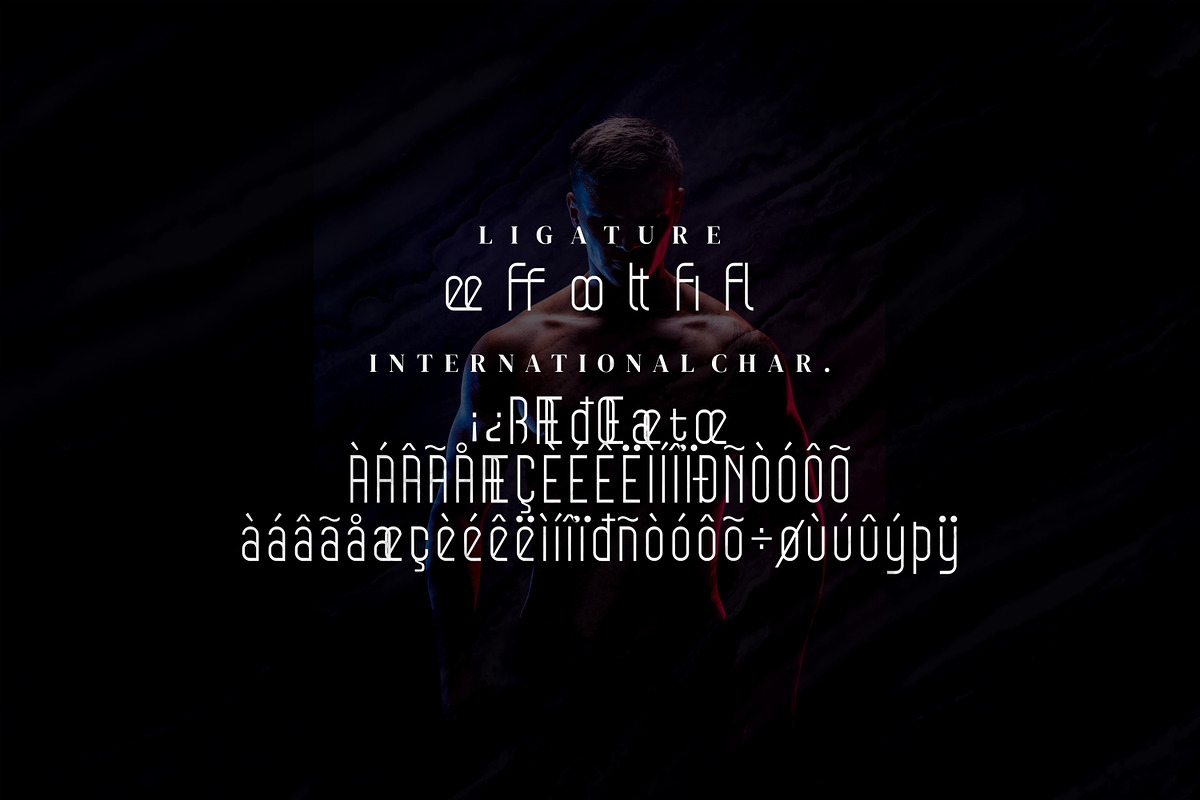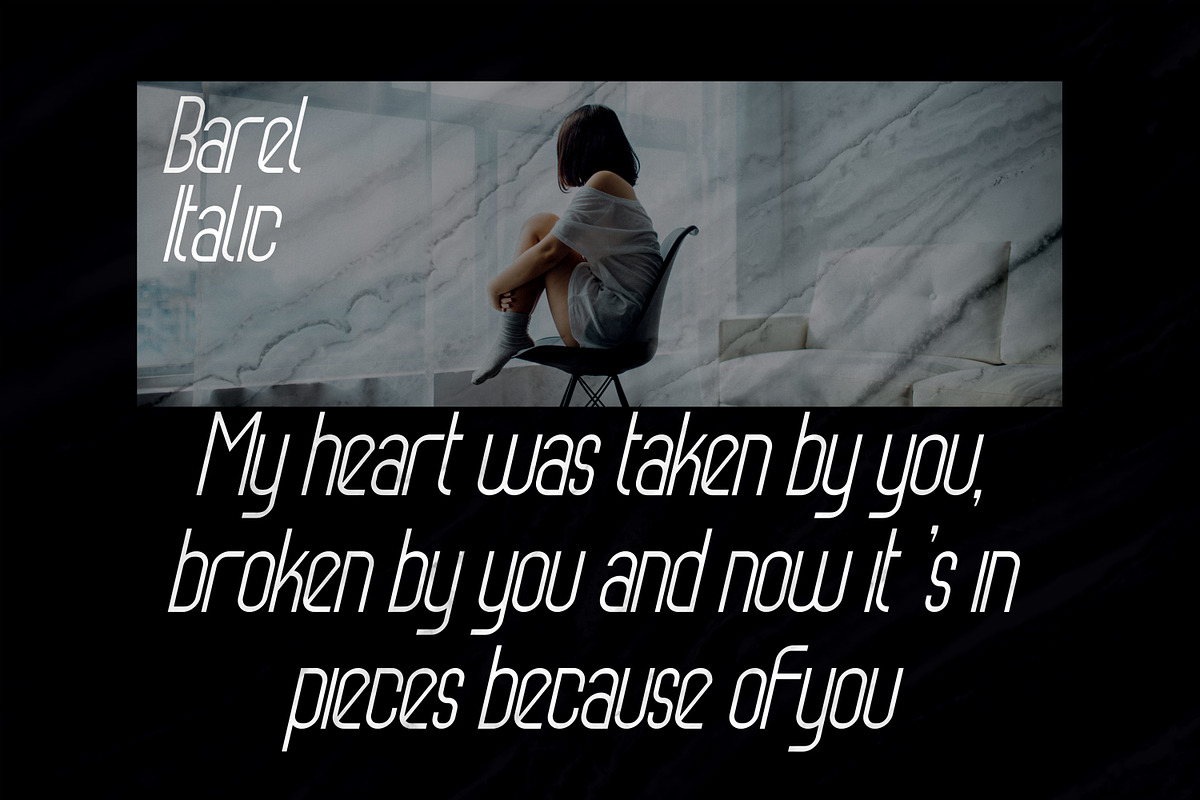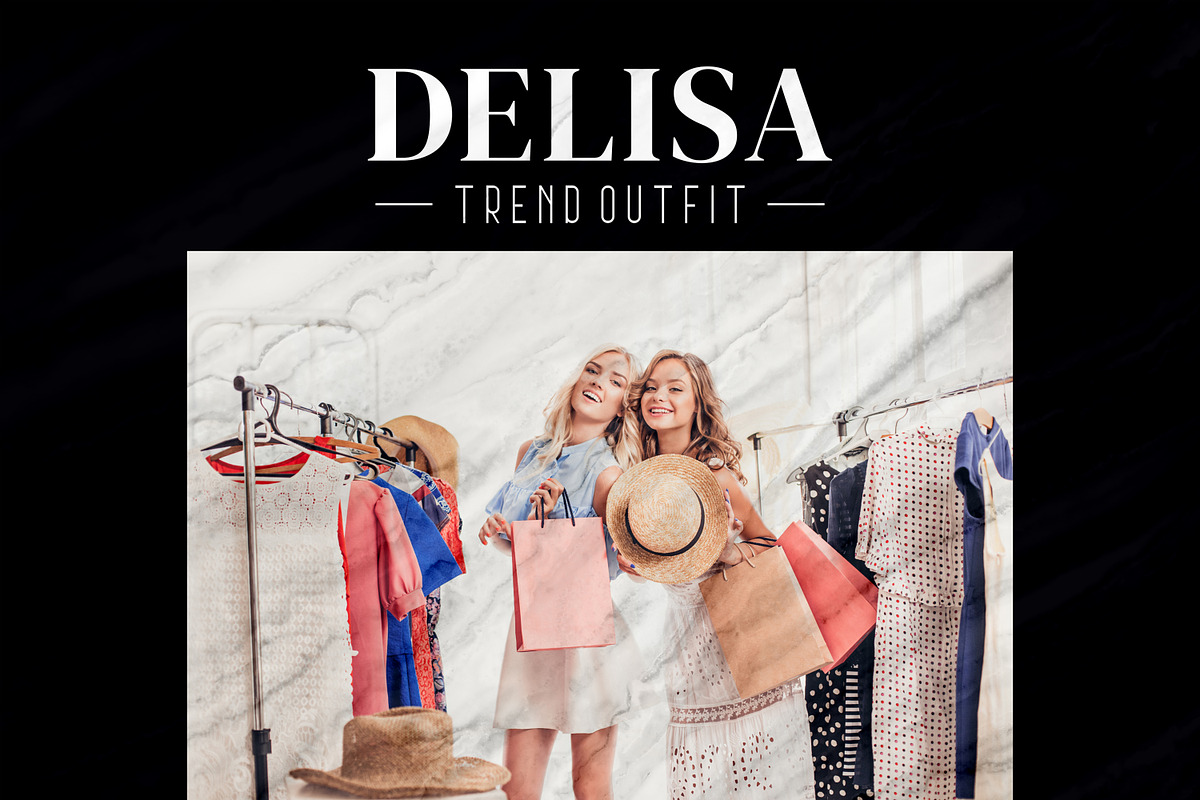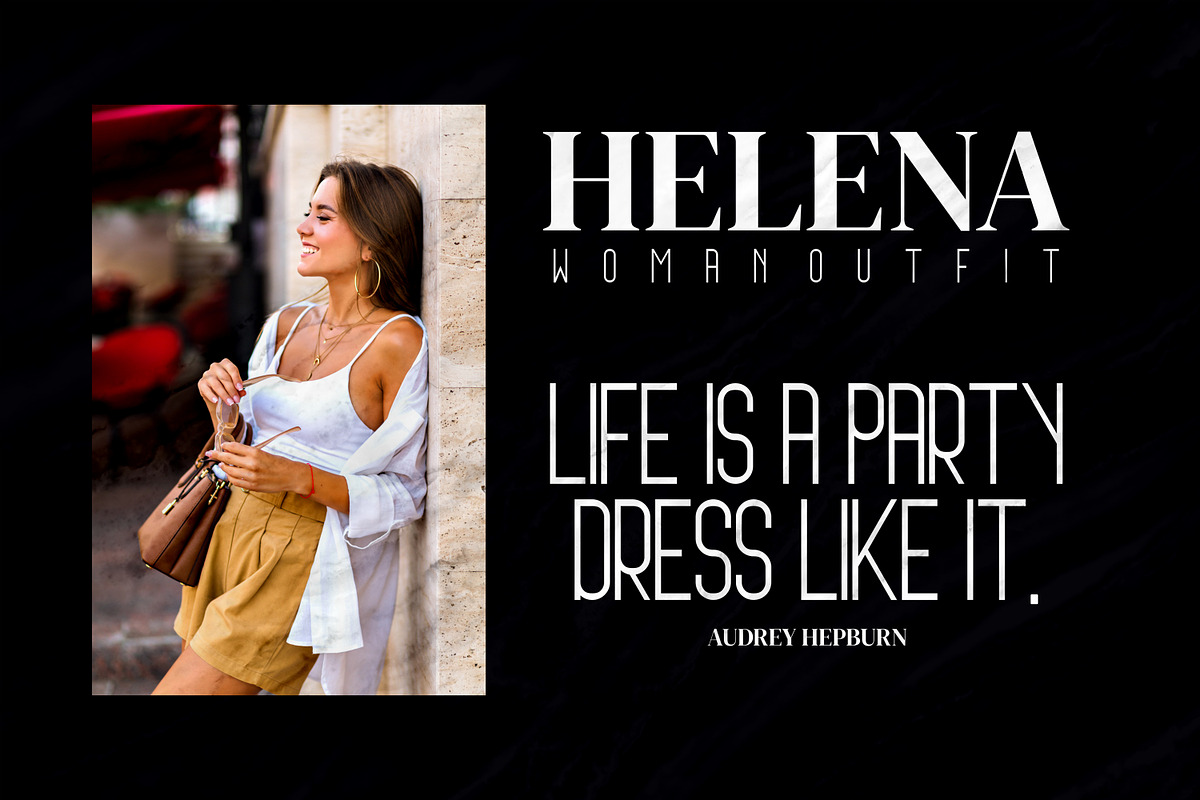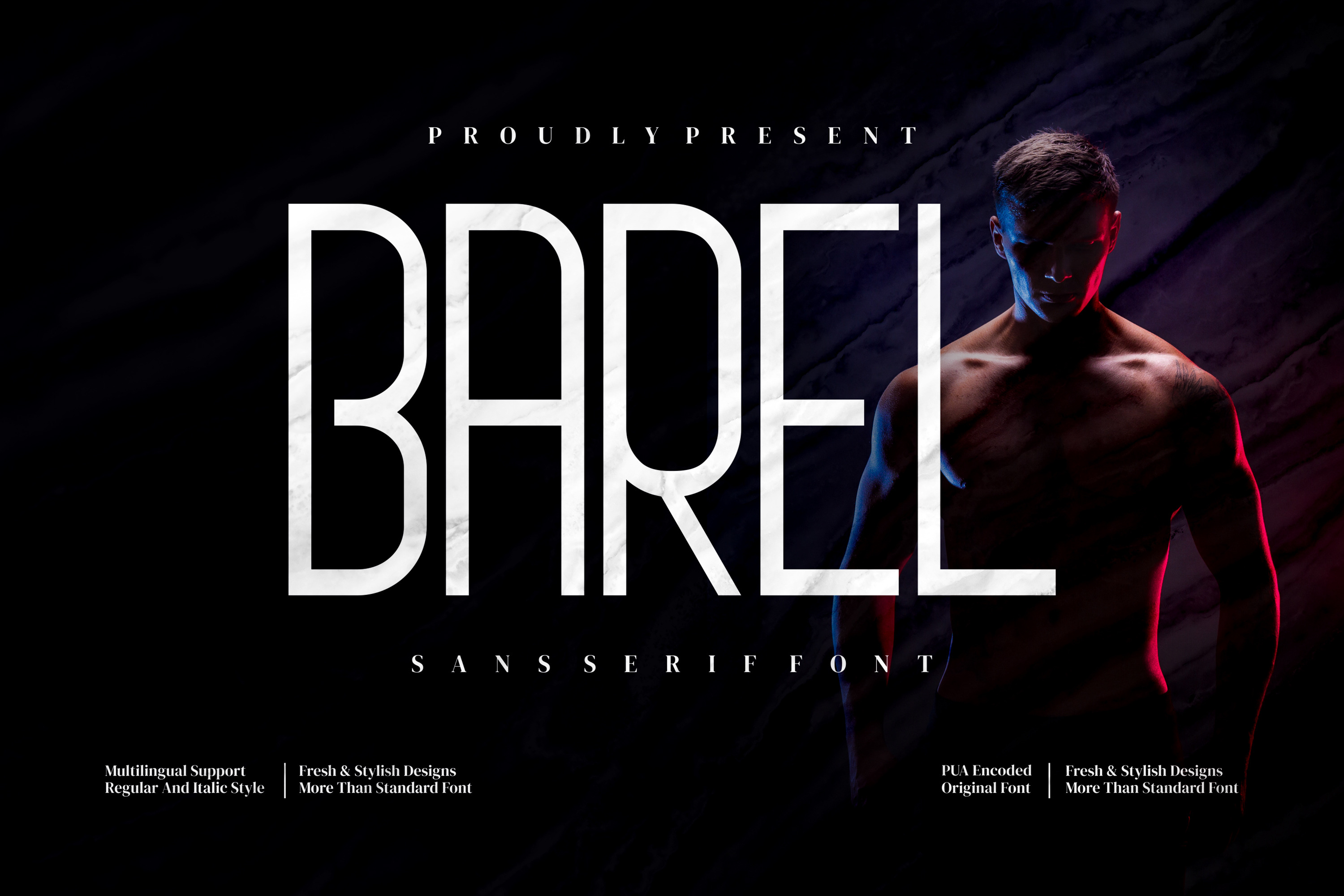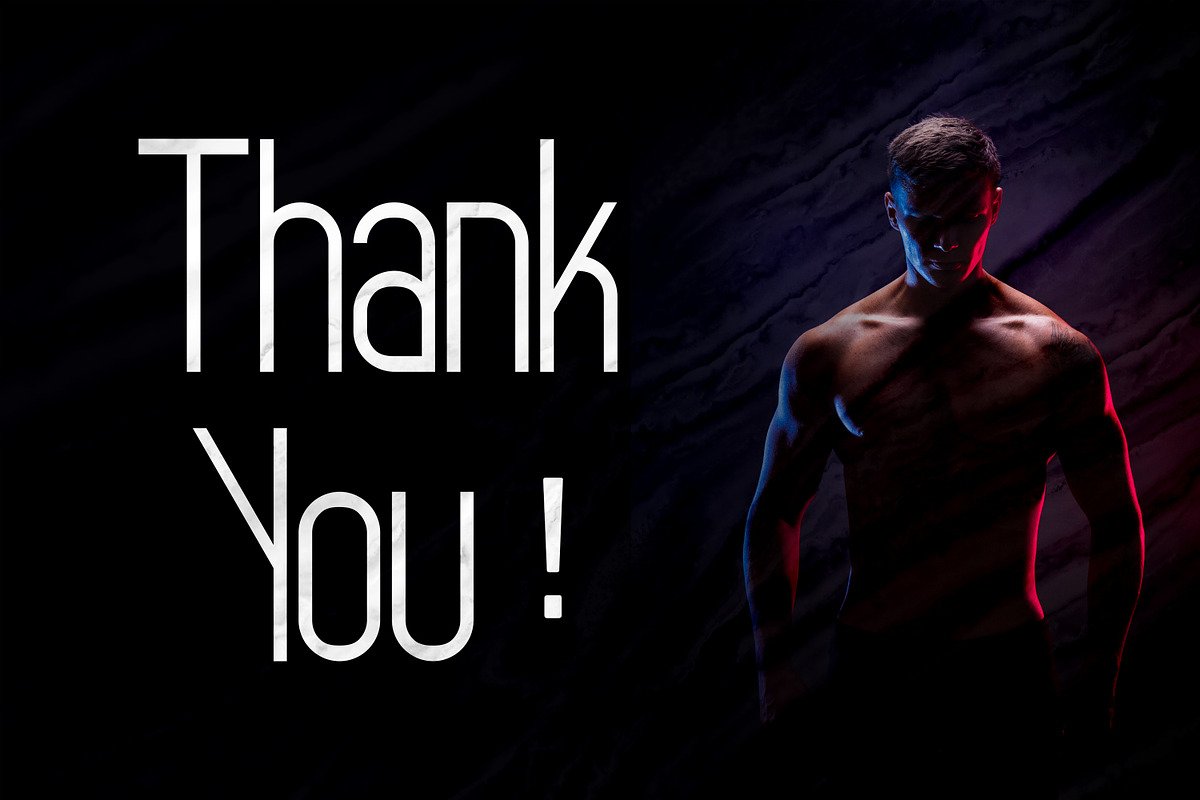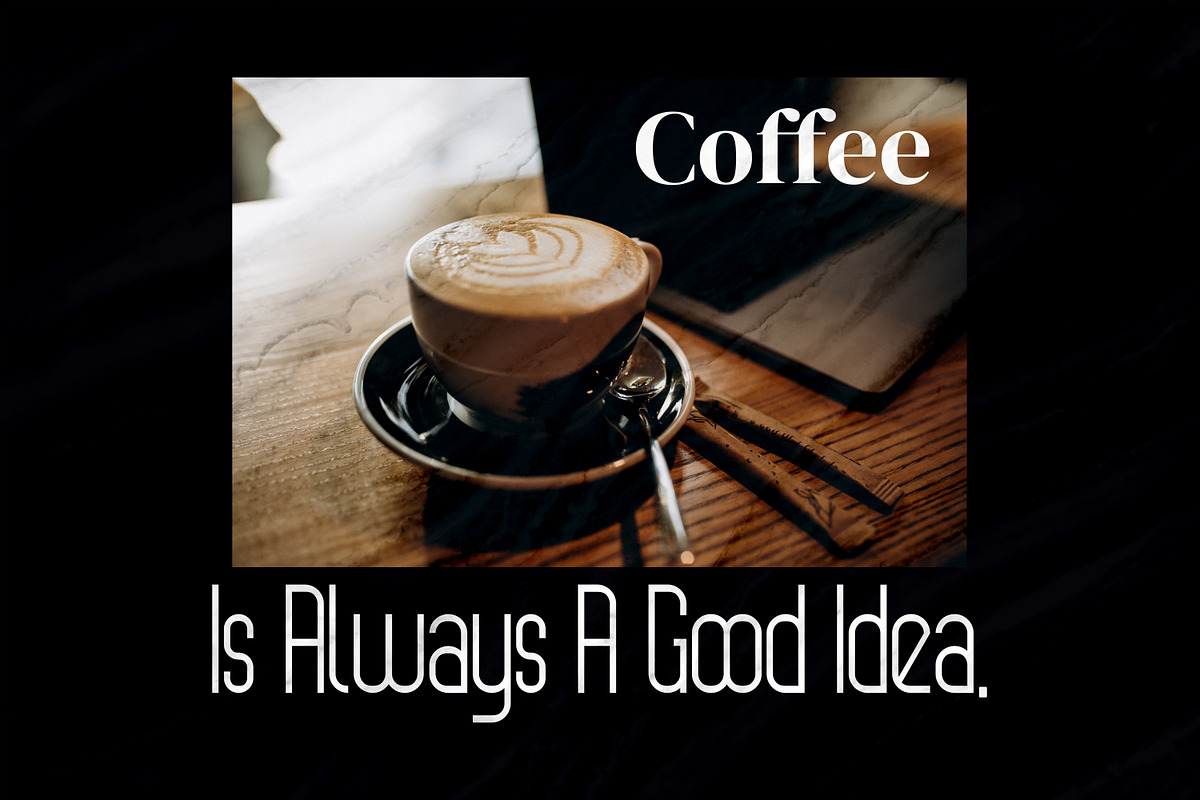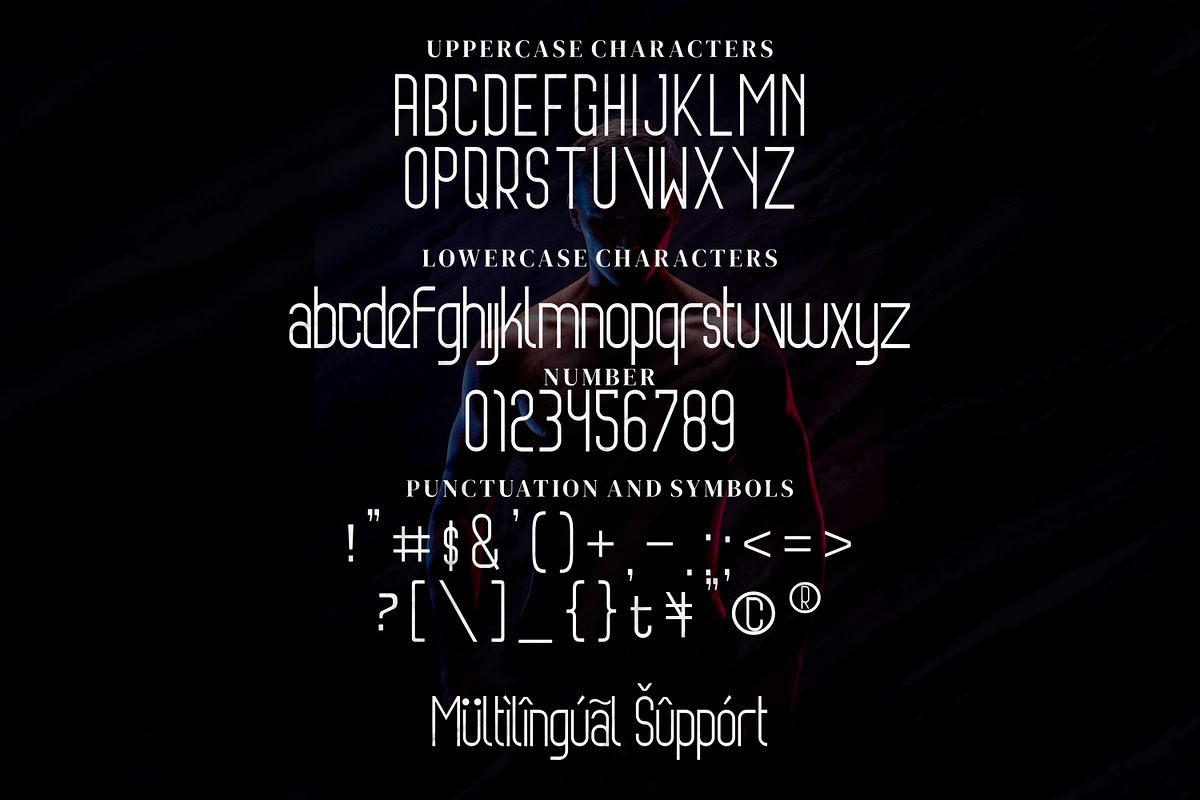
Barel - Modern sans serif font
Barel - Modern sans serif font, suitable for any projects such as: logos, branding projects, homeware designs, product packaging, mugs, quotes, posters, shopping bags, t-shirts, book covers, name card, invitation cards, greeting cards, label, photography, watermark, special events, and all your other luxury projects that need a premium signature taste. if you use this font, it certainly makes a very interesting and professional impression for you